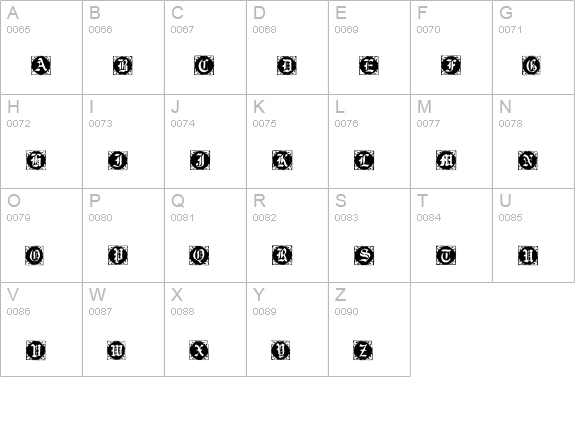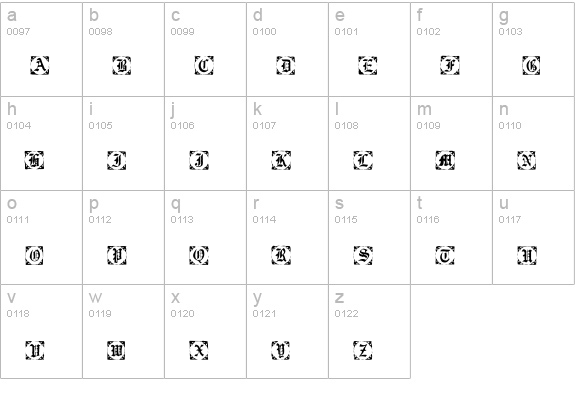
Helenium Font Details
Helenium font is a stunning typeface that effortlessly combines elegance with a touch of playfulness. Designed with meticulous attention to detail, this font is perfect for capturing attention and adding a unique flair to any project. Featuring beautifully balanced letterforms and smooth curves, Helenium font brings a sense of sophistication to your designs. Its versatile nature allows it to be used in a variety of contexts, from branding and logos to invitations and headlines. Whether you're aiming for a modern and sleek look or a more vintage and nostalgic feel, Helenium font has got you covered. What sets Helenium font apart is its free availability. That's right, this remarkable typeface is freely available to download at FontsMarket.com. Now you can enhance your designs with this exquisite font without breaking the bank. This generous offering allows designers, artists, and creatives of all kinds to unleash their creativity without any limitations. With Helenium font, you can effortlessly elevate your designs and make a lasting impression. Its unique personality and versatility make it a go-to choice for various design projects. Whether you're designing a logo for a high-end fashion brand or creating eye-catching posters for a music festival, Helenium font will help you stand out from the crowd. Download Helenium font for free at FontsMarket.com and unlock a world of creative possibilities. Step up your design game and let this remarkable typeface become your go-to tool for creating visually stunning and impactful designs. Embrace the freedom of expression and watch your designs come to life with Helenium font.